Beautiful ligature fonts are becoming one of the biggest typography trends in 2026. Designers across branding, fashion, packaging, social media, and editorial industries are increasingly using ligature fonts to create elegant, artistic, and memorable visual identities. These fonts bring a more personal and luxurious look to typography by connecting the letters in creative ways.
Ligatures are not new in typography history, but modern designers are now using them more creatively than ever before. From stylish logos and fashion branding to luxury packaging and Instagram graphics, ligature fonts help text feel more fluid, expressive, and visually sophisticated.
In this article, we’ll explore what ligature fonts are, why they are trending in 2026, tips for using them effectively, and 20 beautiful ligature font recommendations designers currently love.
What Are Ligature Fonts?
Ligature fonts are typefaces that combine two or more letters into a single connected character. Instead of letters appearing separately, certain combinations blend seamlessly to create a more aesthetic typography.
Common ligature combinations include:
- fi
- fl
- ff
- th
- st
- ct
Modern ligature fonts often include decorative custom connections between letters to create unique visual effects.
For example:
- “fi” may become one elegant connected shape.
- “th” can appear as a smooth flowing combination.
- “st” may merge into stylish curves.
Ligatures improve both visual beauty and typography rhythm.
Why Ligature Fonts Are Trending in 2026
Designers Want More Unique Branding
In crowded digital spaces, brands need typography that feels distinctive and memorable.
Ligature fonts help logos and headlines appear:
- More luxurious
- More artistic
- More premium
- More customized
This uniqueness makes branding more visually recognizable.
Social Media Aesthetics Continue Growing
Instagram, Pinterest, and TikTok heavily influence typography trends.
Modern audiences love typography that feels:
- Elegant
- Editorial
- Stylish
- Handmade
- Sophisticated
Ligature fonts fit perfectly with these visual trends.
Editorial and Fashion Design Influence
Fashion branding and editorial layouts continue to popularize elegant typography styles.
Ligature fonts are widely used in:
- Luxury fashion logos
- Beauty packaging
- Wedding branding
- Modern editorials
- Boutique businesses
Their refined appearance feels highly fashionable in the 2026 design culture.
Tips for Using Ligature Fonts
1. Don’t Overuse Ligatures
Too many decorative connections can reduce readability.
Use ligatures strategically for:
- Logos
- Headlines
- Titles
- Short phrases
Avoid excessive ligatures in long paragraphs.
2. Pair with Simple Fonts
Ligature fonts work best when combined with clean supporting typography.
A common pairing strategy:
- Ligature font for headlines
- Sans-serif font for body text
This creates balanced layouts.
3. Focus on Spacing
Ligature typography often requires careful spacing adjustments.
Pay attention to:
- Letter spacing
- Line height
- Alignment
- Text balance
Good spacing improves readability and elegance.
20 Beautiful Ligature Fonts Designers Love in 2026
Bergavick
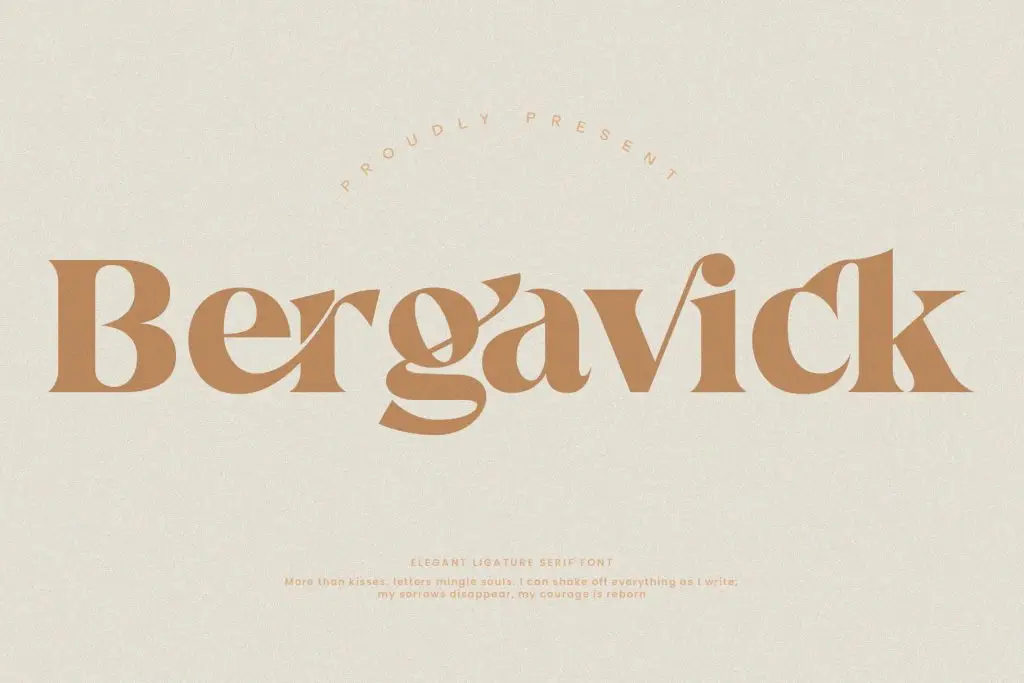
Fhunca Vinjhae
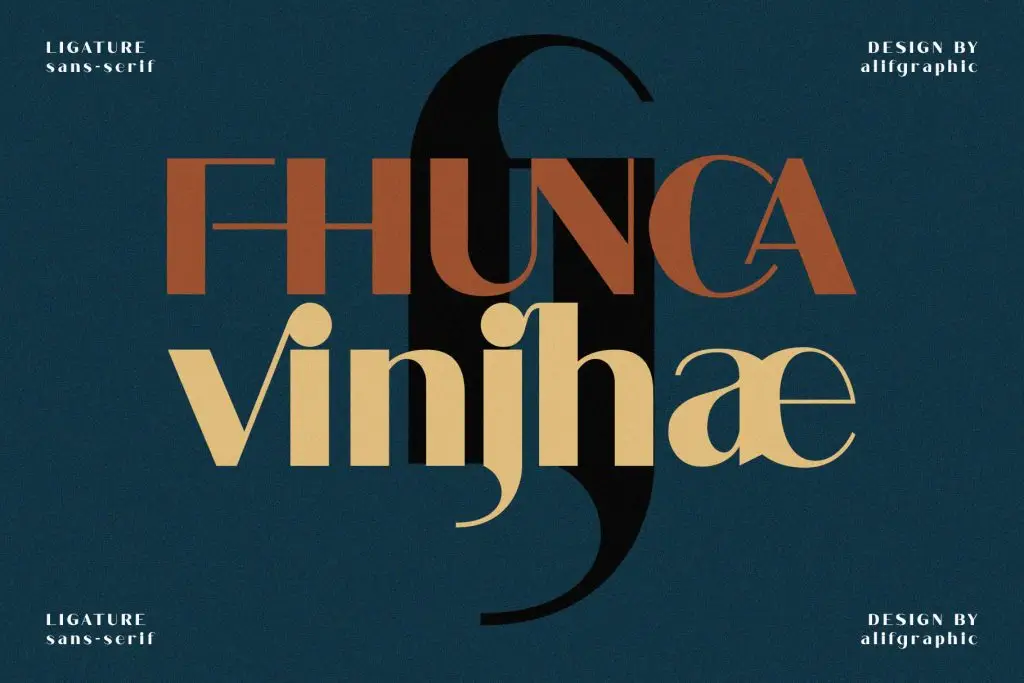
Numplher
Fhunster
Yasmen
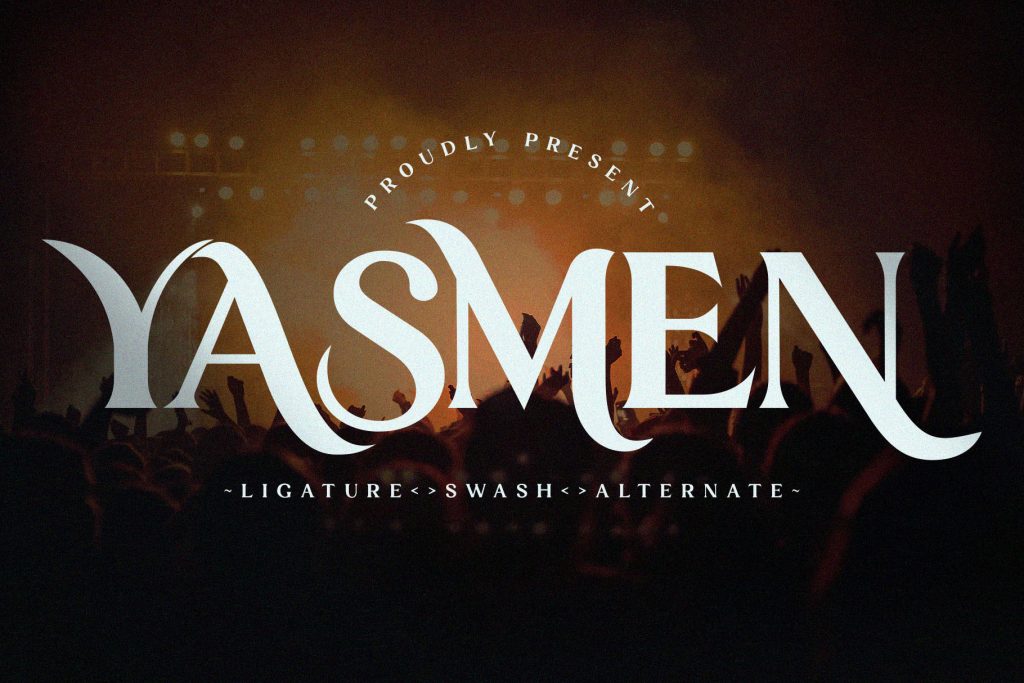
Gillty
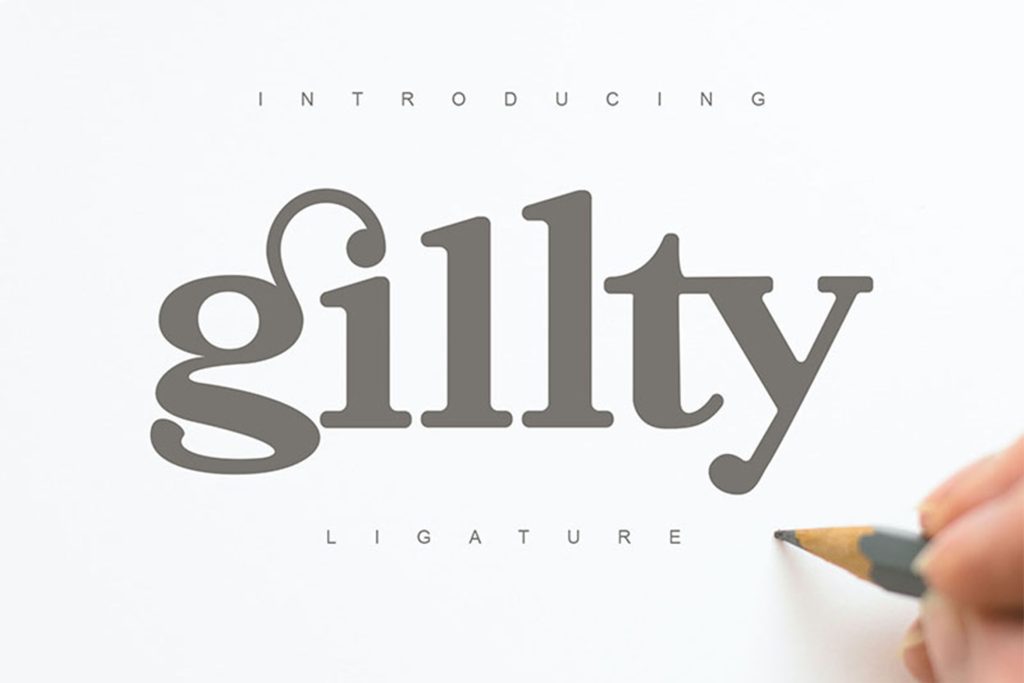
Gellisto
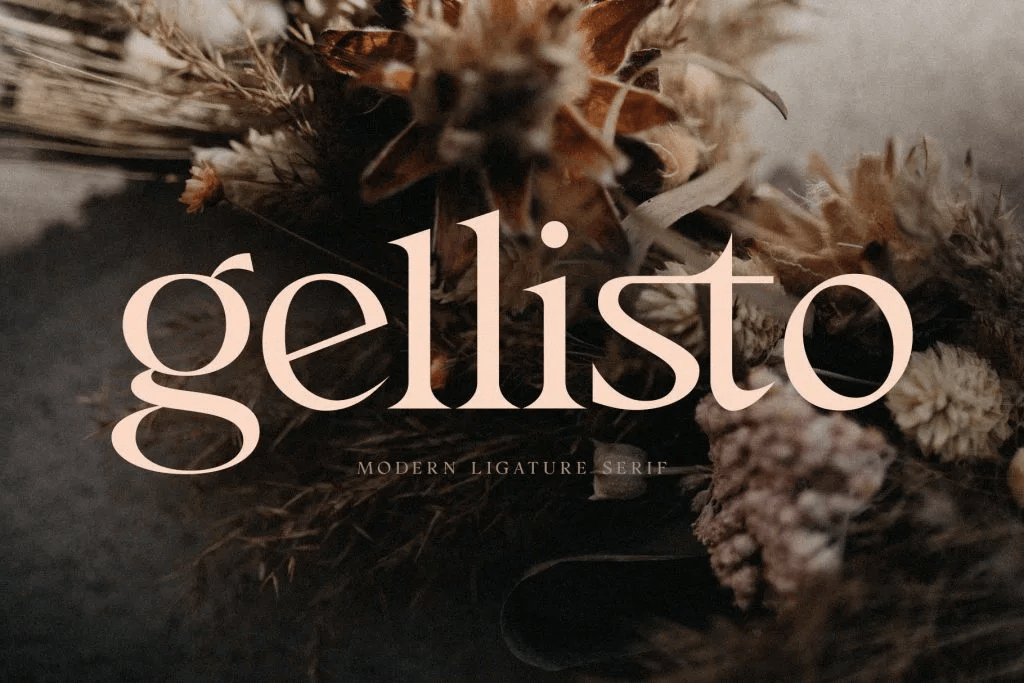
Glaster
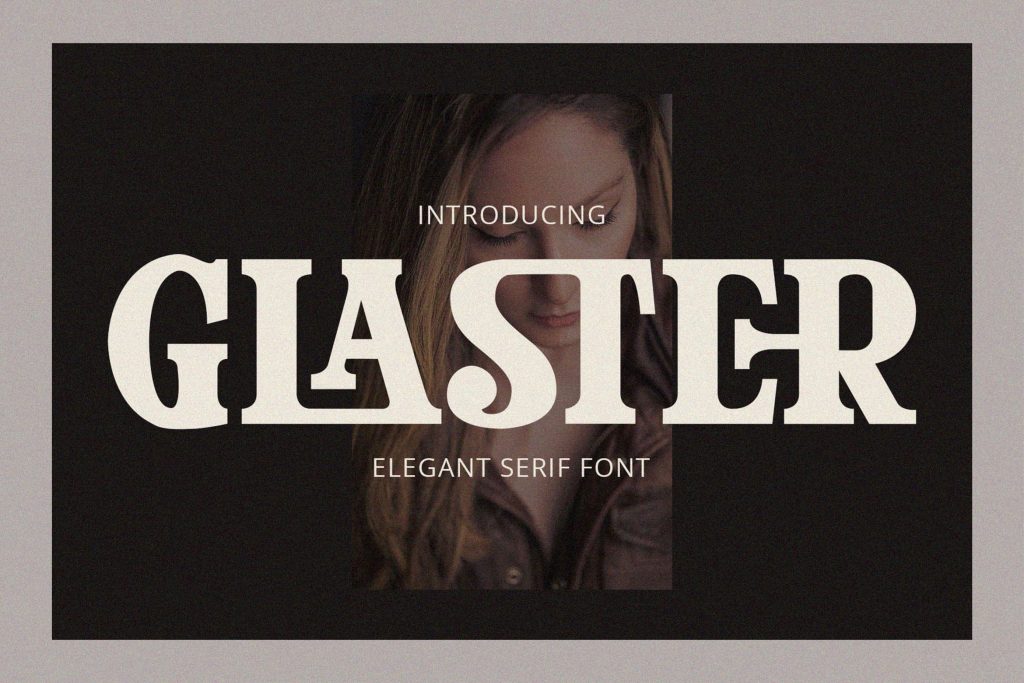
Monna Kalingga
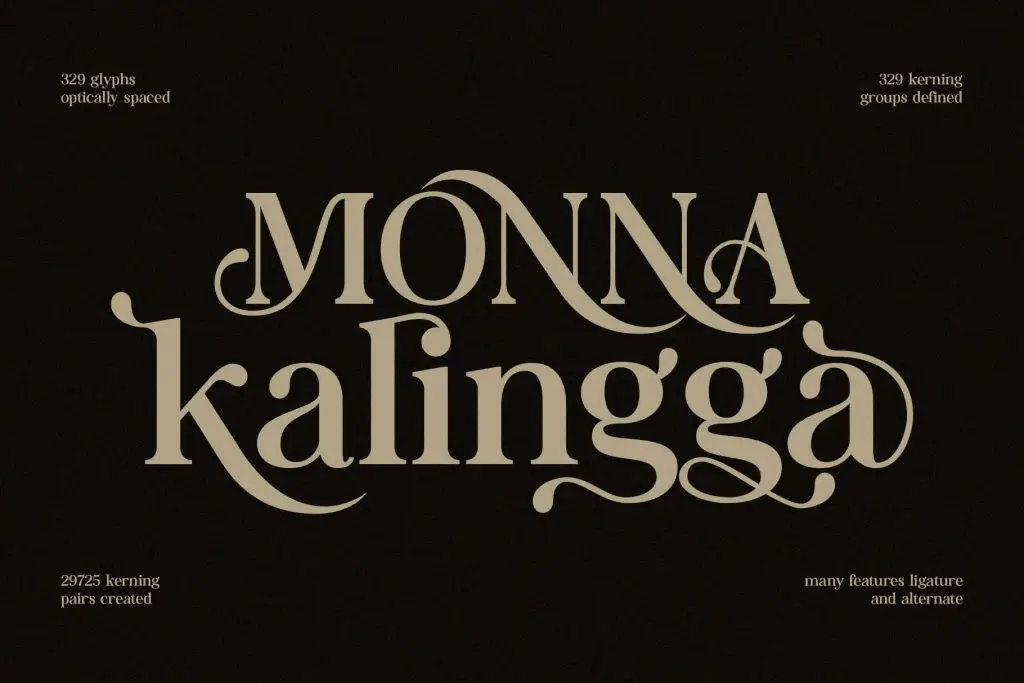
Qasther
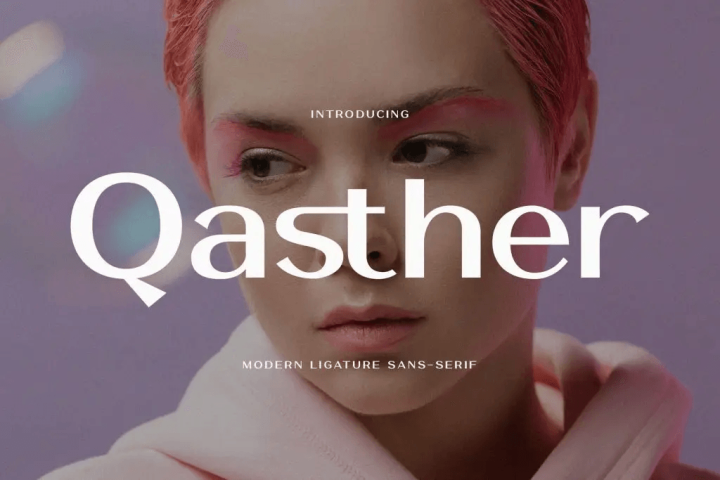
Cheryl Sans Serif
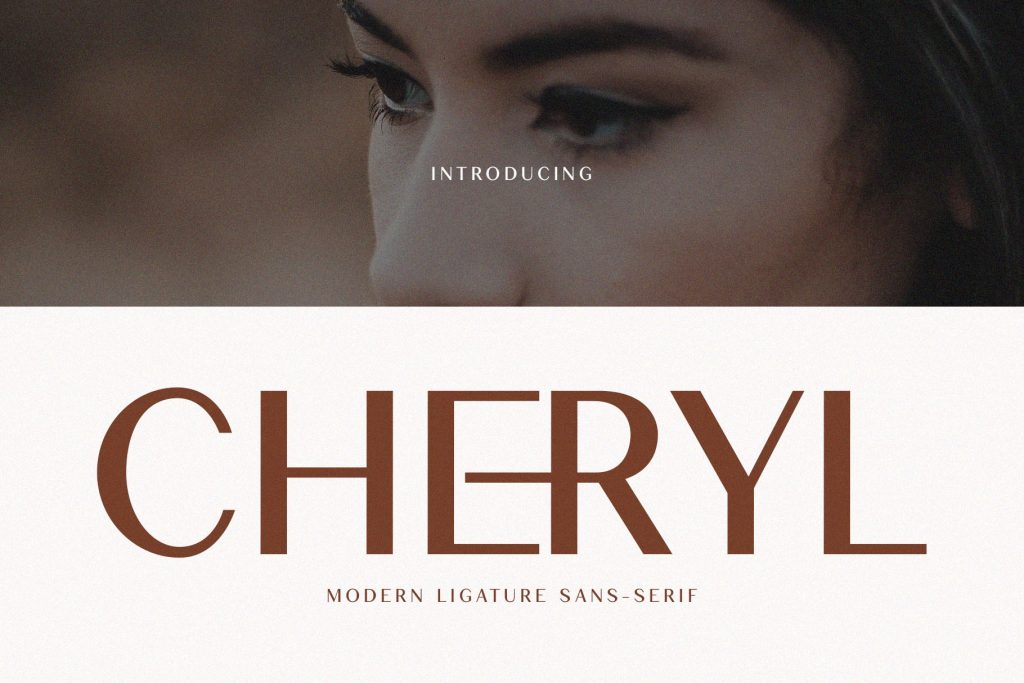
Kefhila Sans Serif
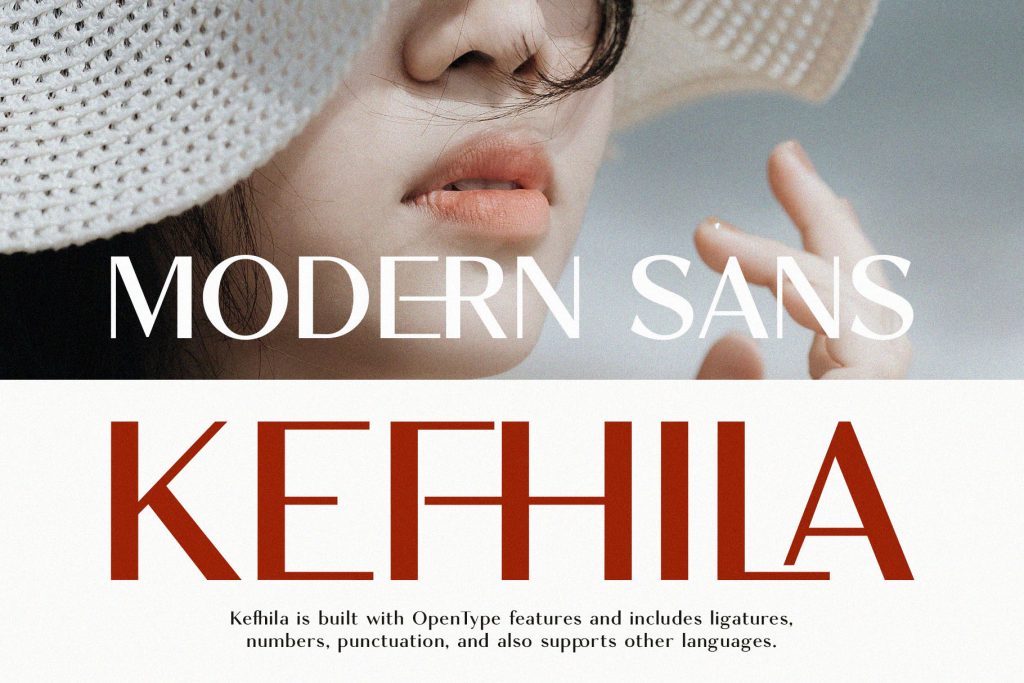
Clerista Serif
Shaqera
Hoodger
Fistale
Stigfier
Kefhila Serif
Cheryl Serif
The Braga
Conclusion
These beautiful ligature fonts show why ligature typography is becoming one of the biggest design trends in 2026. By combining elegant letter connections with modern aesthetics, ligature fonts help brands and designers create more distinctive and memorable visual identities.
Whether you’re designing fashion branding, editorial layouts, beauty packaging, or luxury logos, fonts like Bergavick, Monna Kalingga, Cheryl Serif, The Braga, and others can elevate typography into a stronger visual storytelling tool.
Ligatures are no longer just typographic details; they are becoming the centerpiece of modern branding aesthetics.